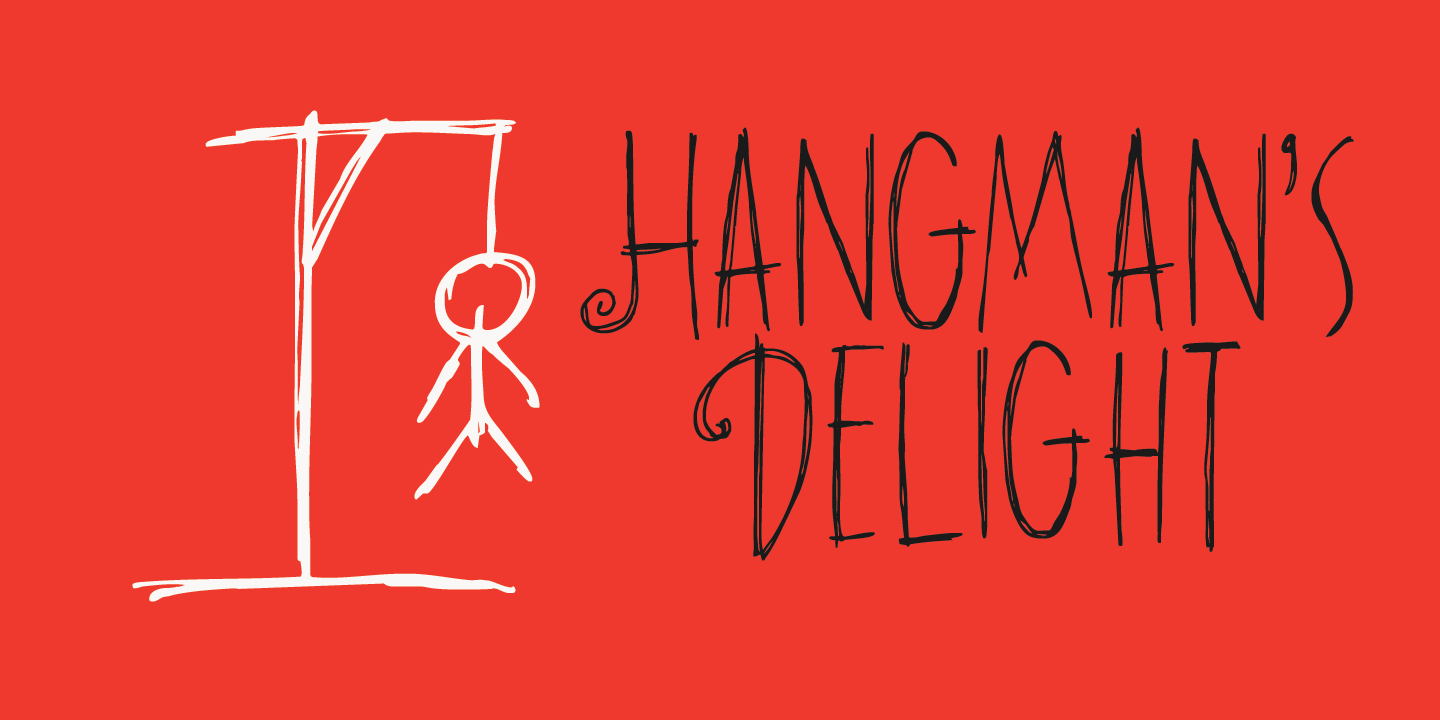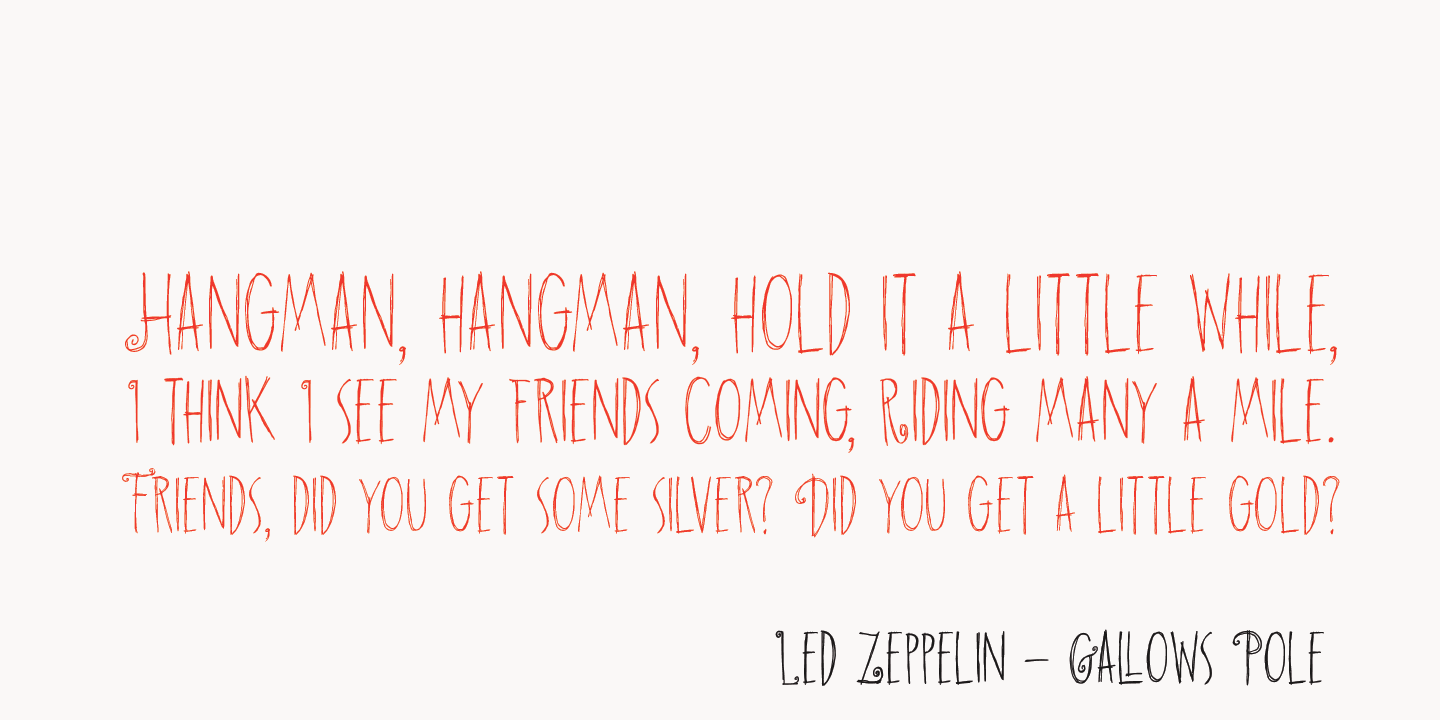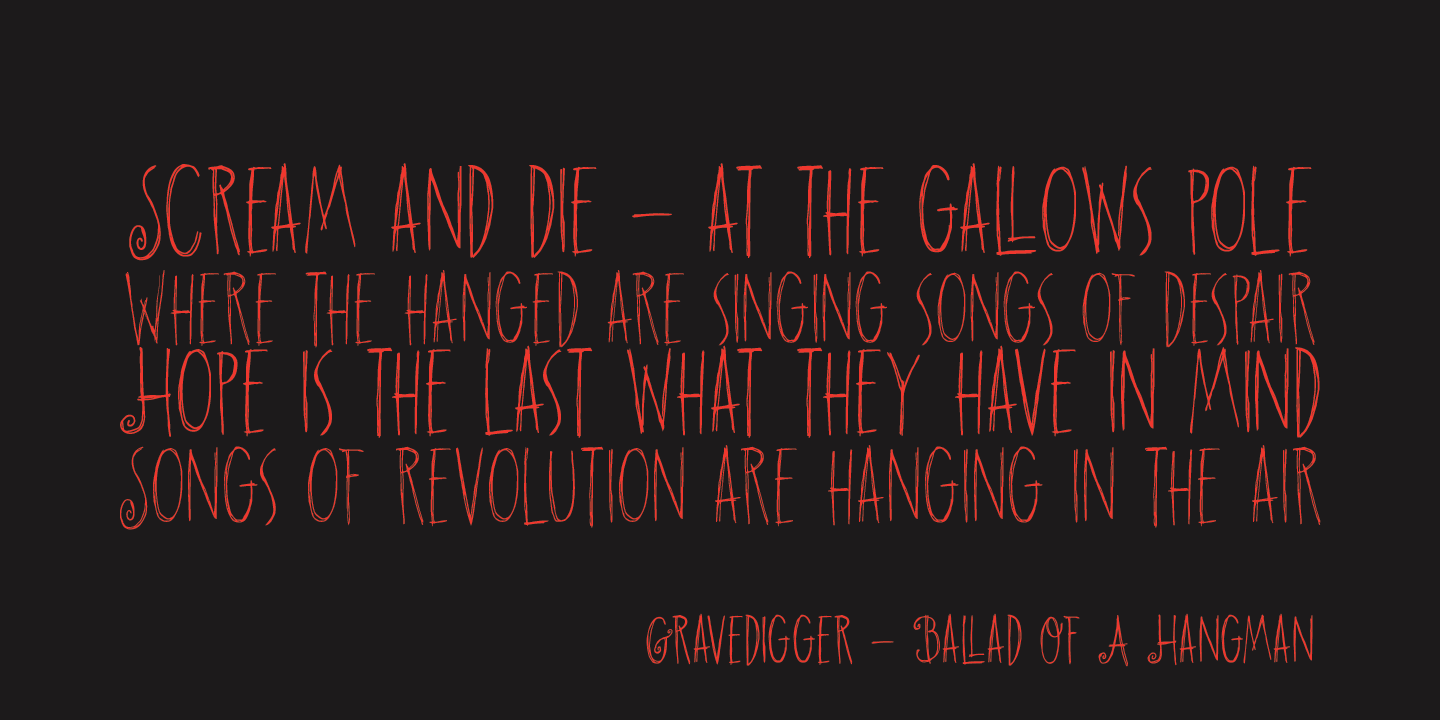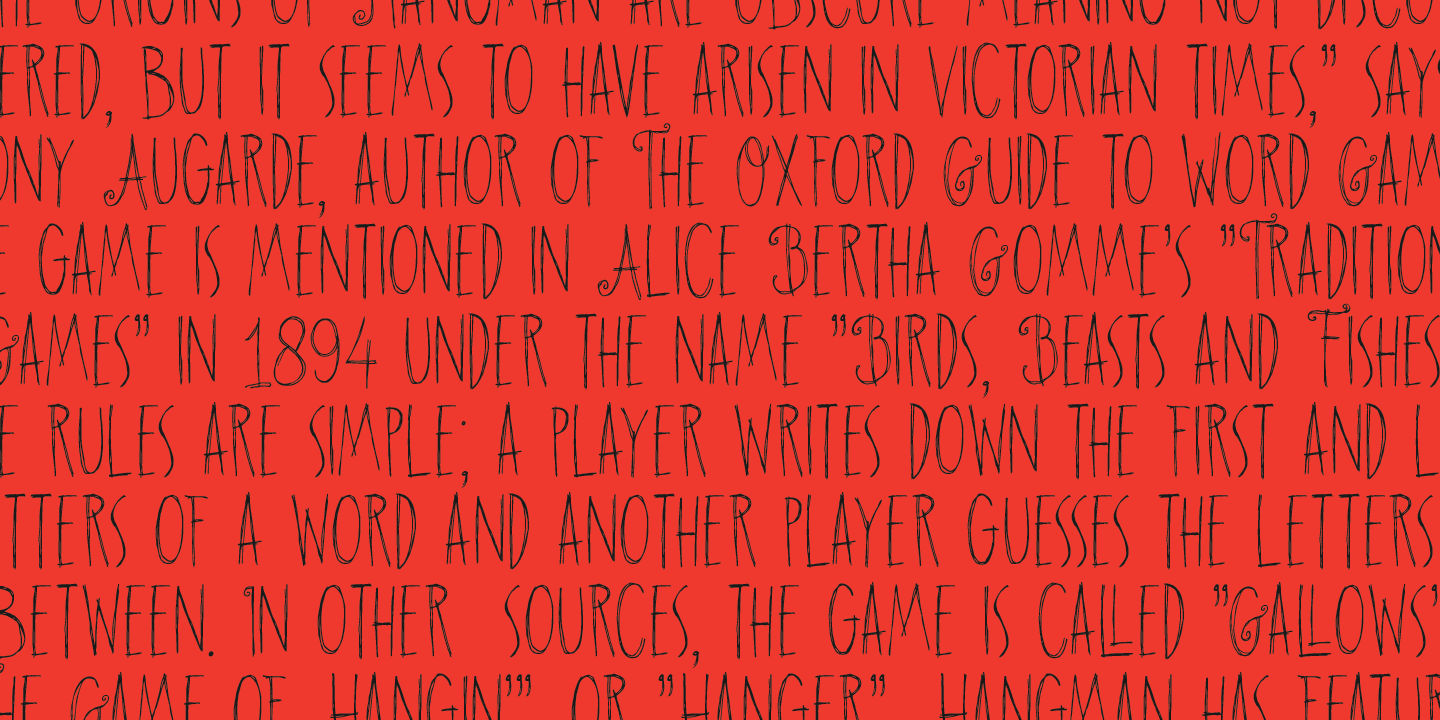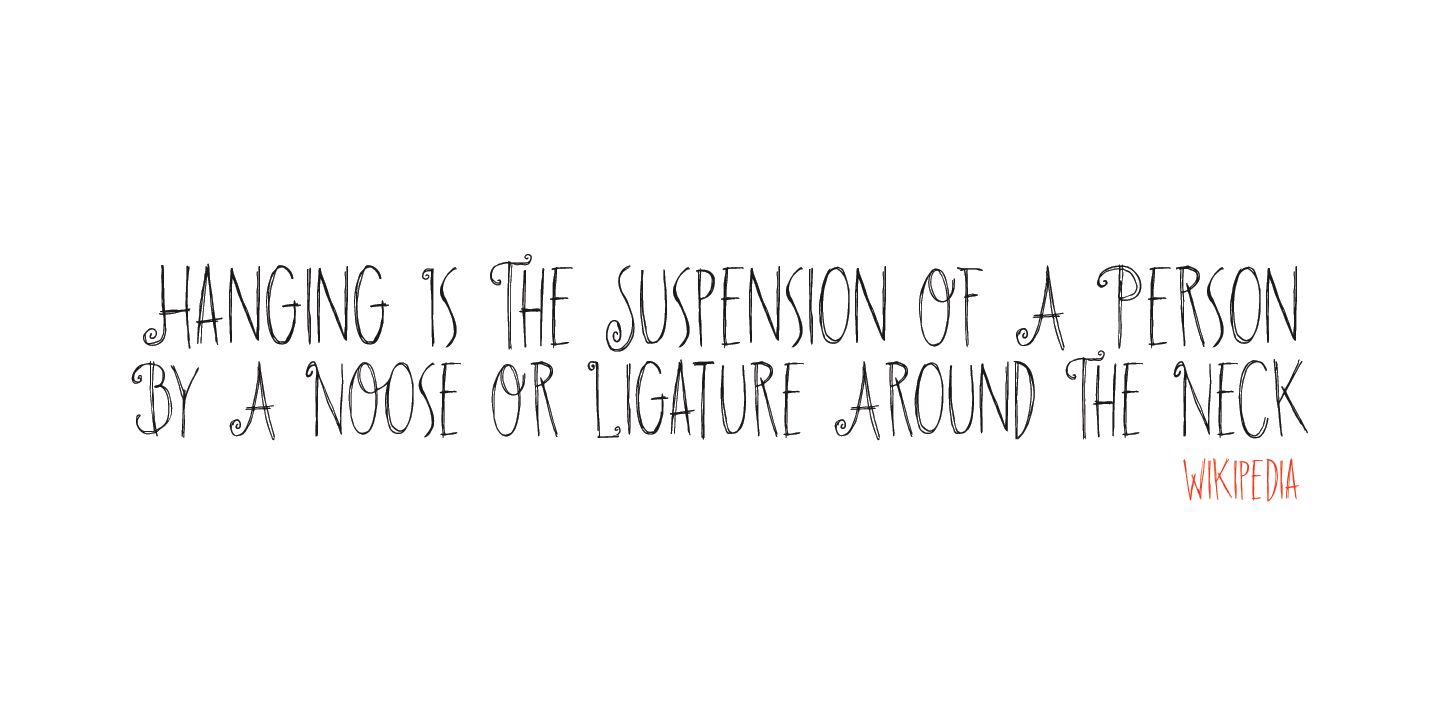
Hangman's Delight
Hangman's Delight is a scratchy, all caps font. The upper case letters come with swirls and curls, but the lower case letters are unadorned. A bit of an unusual font, I admit, but it would look nice on book covers and posters.
Comes with some ligatures and stylistic alternates and a whole bunch of diacritics.